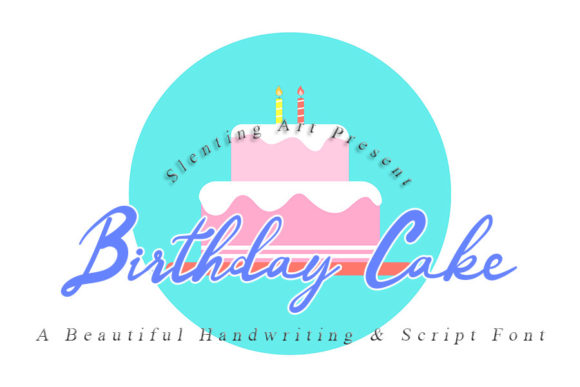
The Birth of a Beautiful Font: A Designer’s Love Affair with Birthday Cake
I still remember the project like it was yesterday. I was working on a wedding invitation design, and my client had very specific ideas about the style she wanted. Elegant, modern, and classy were the adjectives she used to describe her vision. As I scrolled through my font library, I stumbled upon Birthday Cake, a beautiful and refined script font that caught my eye. I knew immediately that it was the one.
• ✨ Elegant and modern design that’s perfect for logos, branding, invitations, and more
• ✅ Highly versatile and adaptable to different design contexts
• 💫 Beautifully crafted letters with a classy, sophisticated feel
While Birthday Cake is an amazing font, it’s not without its quirks. Here are a few things to keep in mind:
• 🤔 The font can be a bit finicky when it comes to kerning, so be prepared to make some adjustments for optimal results
• ⚠️ Some users have reported issues with rendering on certain devices, but this is relatively rare
The Designer Inspiration Behind Birthday Cake
While the true story behind Birthday Cake may be a mystery, it’s easy to imagine that its designer was inspired by the elegance and sophistication of fine dining. Perhaps they wanted to create a font that would evoke the feeling of a special occasion, like a birthday or wedding. Whatever the inspiration, the result is a truly beautiful and refined script font that’s perfect for a wide range of design applications.
Q: What type of designs is Birthday Cake best suited for?
A: Birthday Cake is a versatile font that can be used for a wide range of designs, including logos, branding, invitations, stationery, wedding designs, social media posts, and more.
Q: Is Birthday Cake a difficult font to use?
A: While Birthday Cake has some advanced typography features, it’s actually quite easy to use, even for beginners. With a little practice, you’ll be creating beautiful designs in no time.